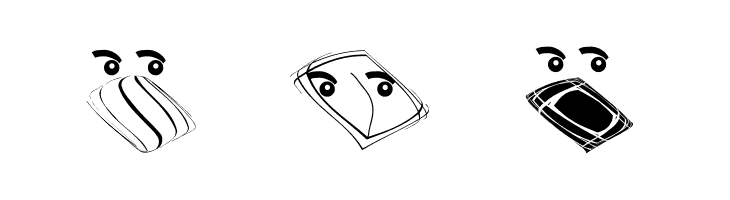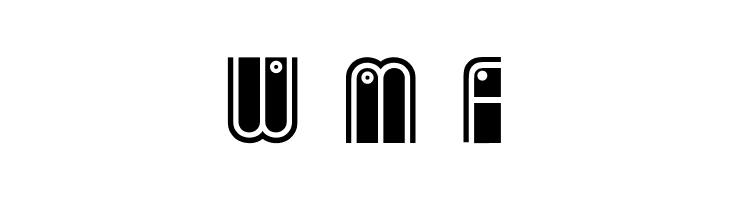
• Eyeballs
Decorative font with abstract eyeball motifs in circular forms.
• EyeBeings
A whimsical and artistic font featuring characters with unique facial expressions.
• EyeCatching
A bold, decorative font with geometric shapes and intricate details.
• EyeEye
A decorative collection of eye-themed symbols and illustrations.
• EyeEyeOnBlack
Whimsical, eye-themed decorative font with each letter as a distinct illustrated eye.
• EyelecBats
A font featuring symbols resembling electronic circuit diagrams.
• Eyemen
A series of whimsical stick figure illustrations with varied facial expressions.
• EyesAlphabet
A whimsical, eye-themed decorative font with playful character designs.
• EyesAndSoOn
Decorative dingbat font with circular, spiked icons and abstract motifs.
• EyesAugenMouth
A decorative font featuring artistic eye and mouth motifs.